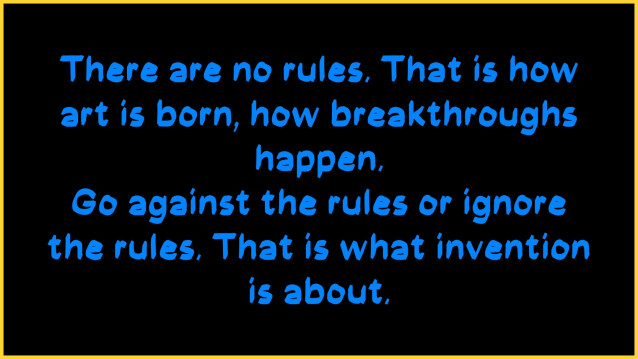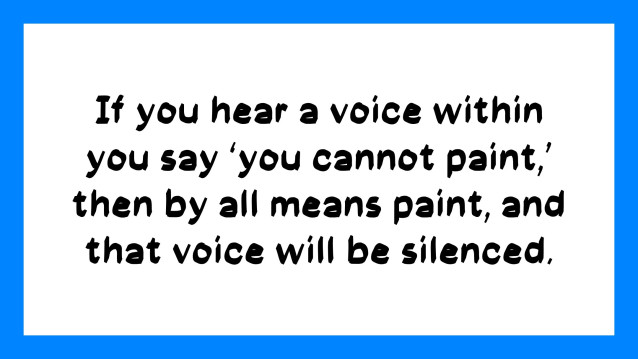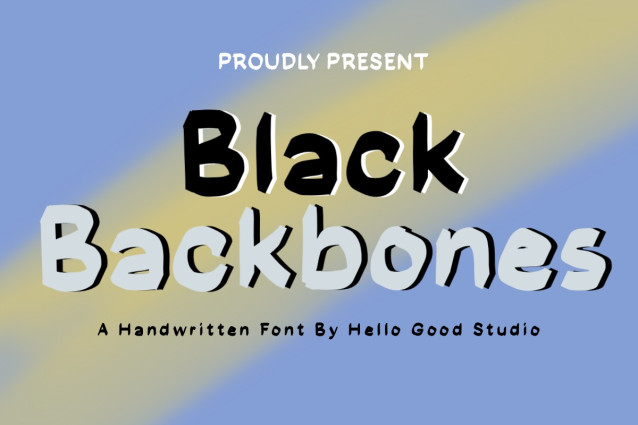
Black Backbone Font
Black Backbone Font is a simple and friendly handwritten font. Its natural and unique style makes it incredibly fitting to a large pool of designs. The only limit is your imagination!